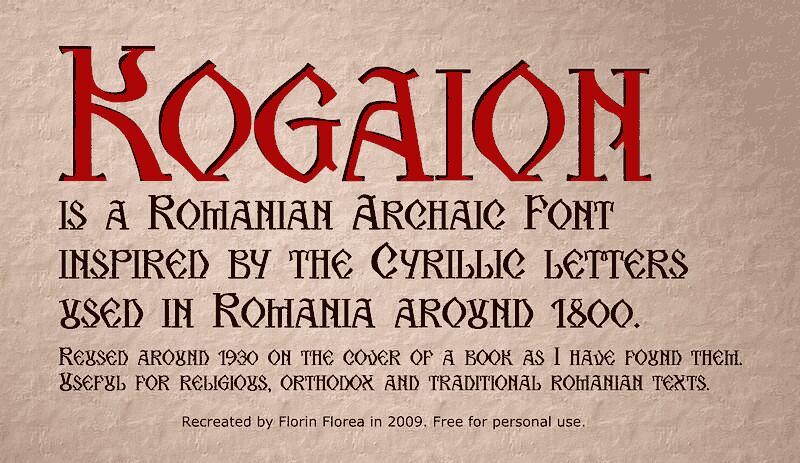
Kogaion SC FR v3.9 by Florin Florea is a free Celtic Gothic display font with tall, sharply cut letters, pronounced thick-thin strokes, and an imposing silhouette. Pointed inner shapes, wedge serifs, and arched forms recall carved medieval ornament.
Its angular outlines echo knotwork and heraldic illustration, linking naturally with fantasy game art, folk festival posters, historical publishing, and themed merchandise. Book covers are its strongest setting, especially when the lettering needs to suggest an old legend or illuminated manuscript.
This typeface, called “Arhaic Romanesc,” is based on the Cyrillic alphabet used in Romania from around 1500 to 1860 for Church Slavonic and Romanian texts.
Kogaion was started in 2009.
It is still a work in progress. The typeface is a revival based on an old book cover from around 1930, which contained only 10 letters for its title. Sixteen additional letters were created in the same style. Numbers and Romanian diacritics were also added.